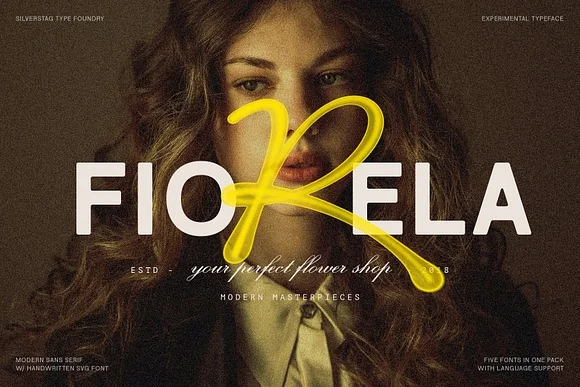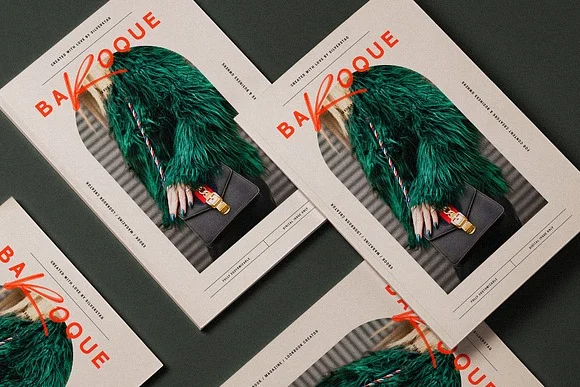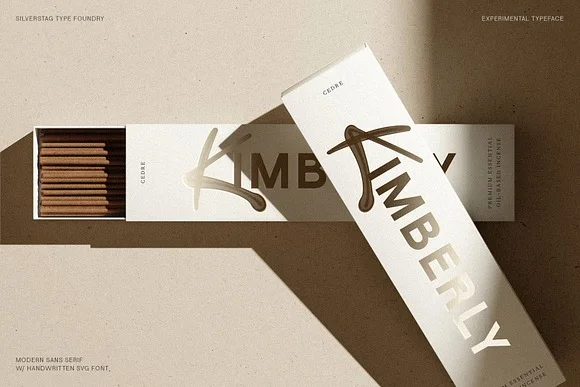
Royal Summer Cool Display Font with Illustrious Summer, a unique textual style team that flawlessly mixes the force of a cutting-edge sans serif with the expressive energy of hand-drawn brush lettering.
A typeface typifies the lighthearted soul of summer with a bit of complex elegance.Royal Summer’s sans serif establishment comes in four unmistakable styles:
Customary Adjusted, Standard Framed, and Adjusted Illustrated. Pick spotless, fresh lines or choose delicate, adjusted edges to accomplish the ideal taste for your task.